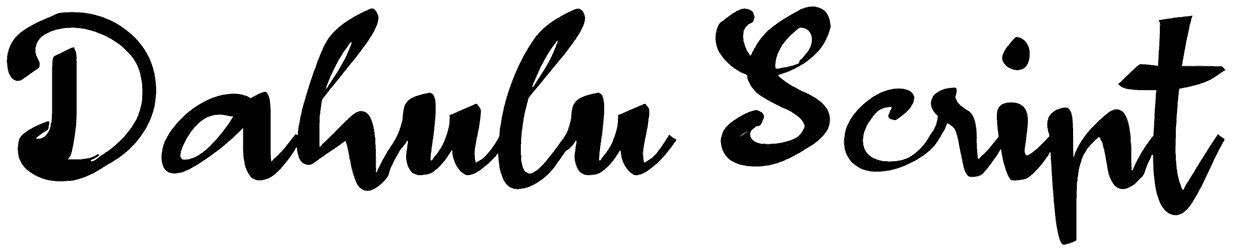
d Dahulu Script Font
When it comes to promotion and boosting a product, designing a quote, or anything in between, it’s critical how you produce the message for it to stay in mind and hold true in the hearts of your target audience.
That’s where graphic impulses play a big role, not to mention this brush font we’re offering for free! Add the refreshed, organic vibes derived from d Dahulu Script font in any design and stay for the booming result.